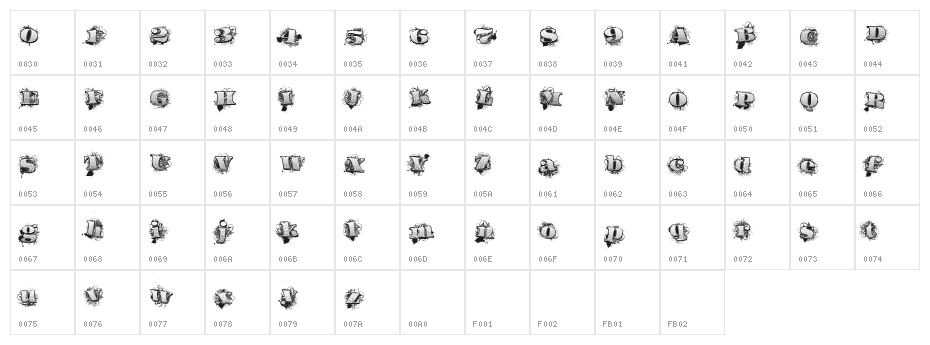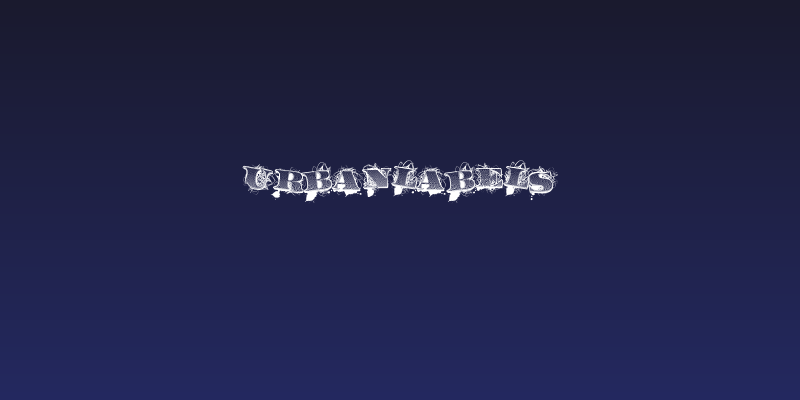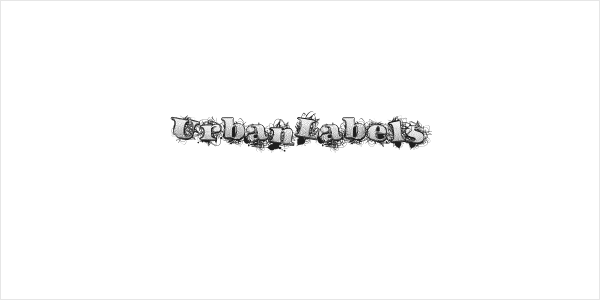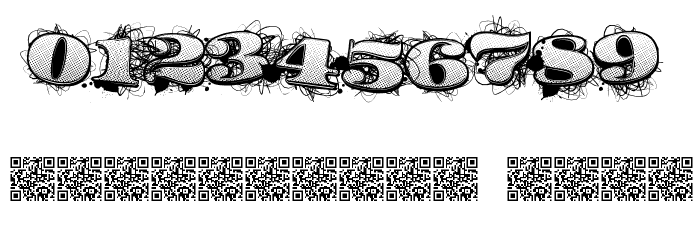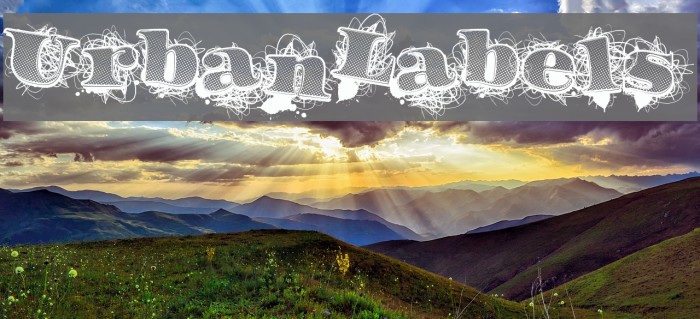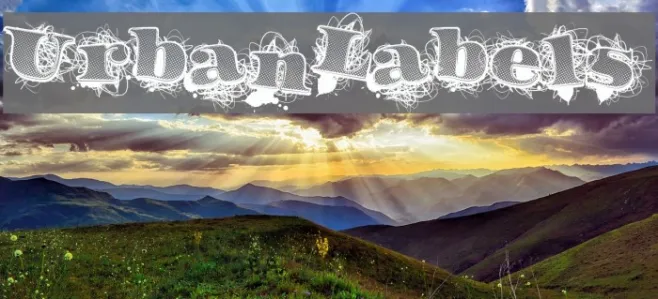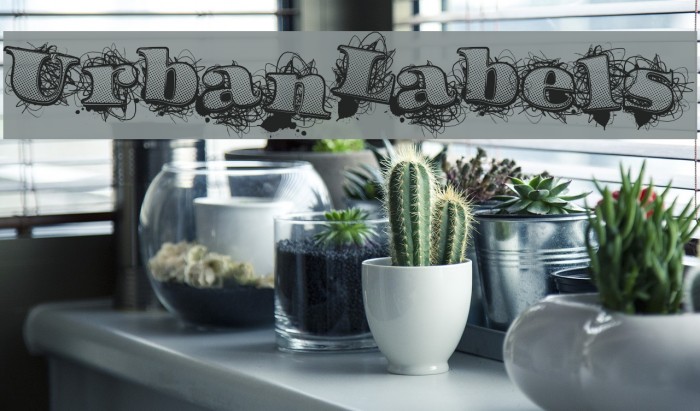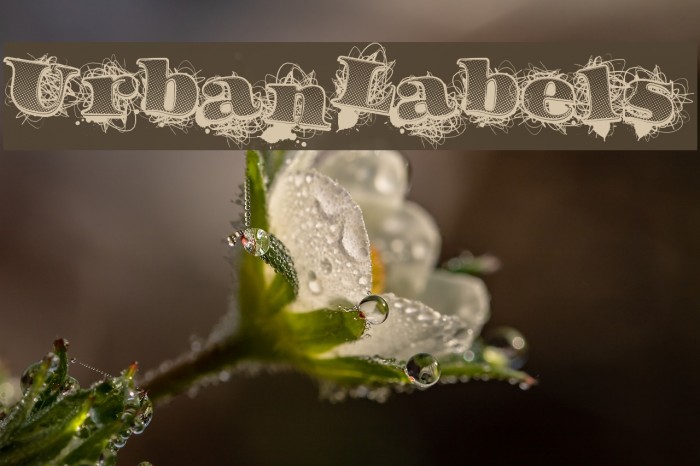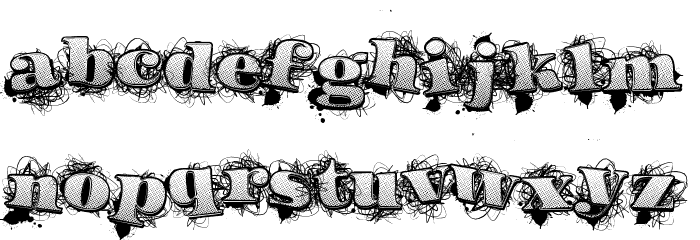
UrbanLabels Font
UrbanLabels Description
This font features a bold and dynamic design with a graffiti-inspired aesthetic. Each character is surrounded by intricate, chaotic lines that give it a textured, urban feel. The letters are bold and heavily stylized, with a three-dimensional appearance that makes them stand out. The overall look is edgy and artistic, perfect for projects that require a modern and rebellious touch. The font combines elements of street art with a structured typeface, creating a unique visual impact.
| Overall Style | Urban, Artistic, Edgy |
| Use Case | Logos, Posters, Branding |
| Proposed Projects | Ideal for streetwear branding, music album covers, urban-themed posters, and graffiti art projects. |